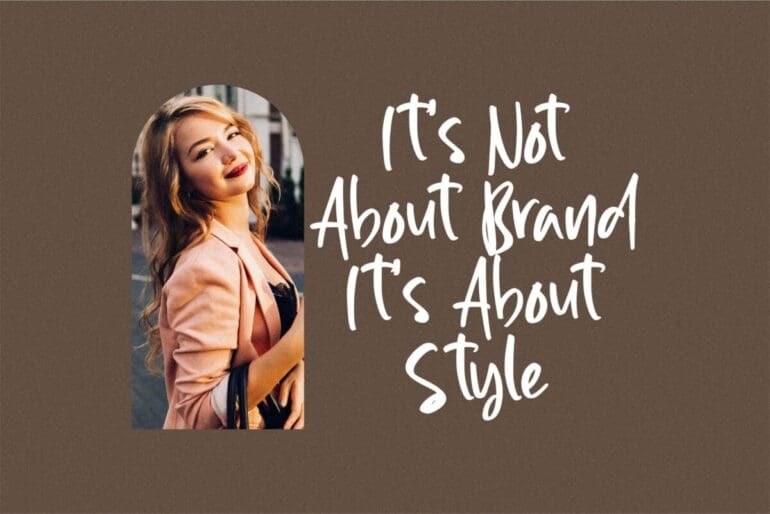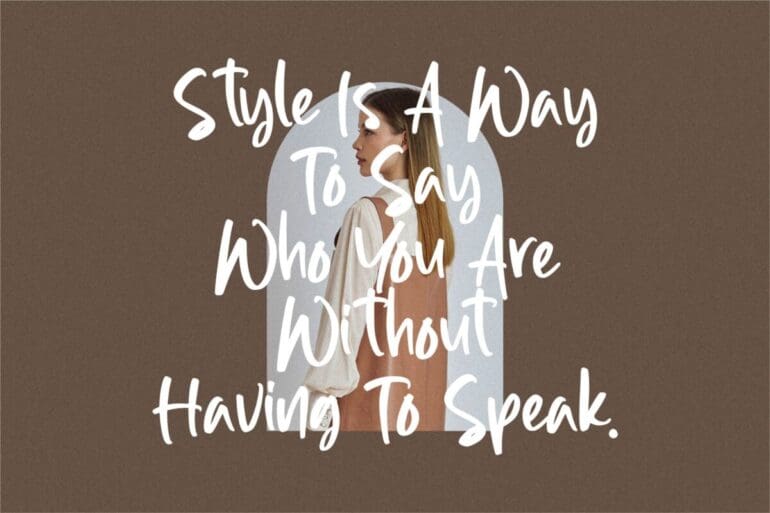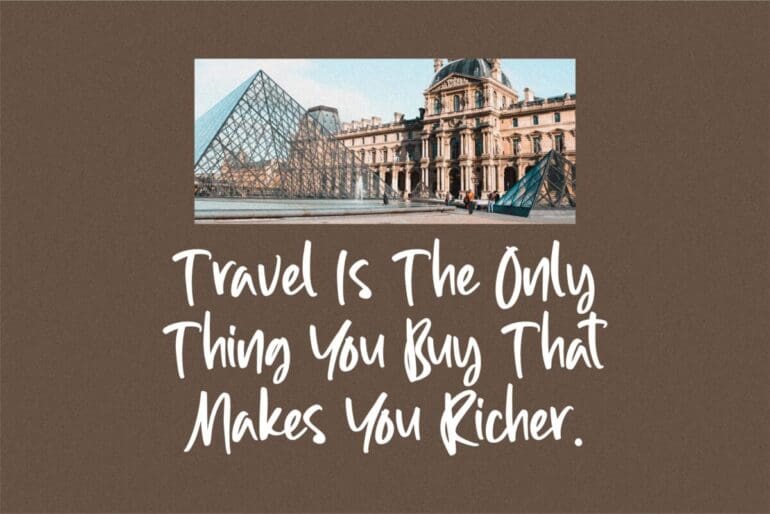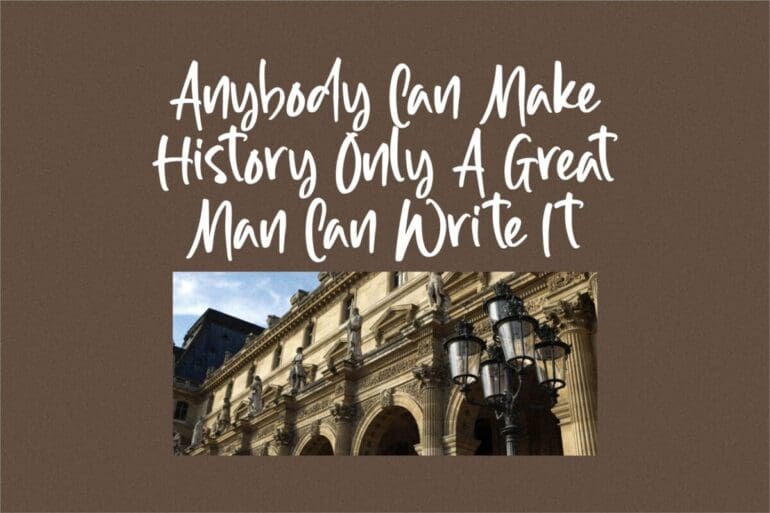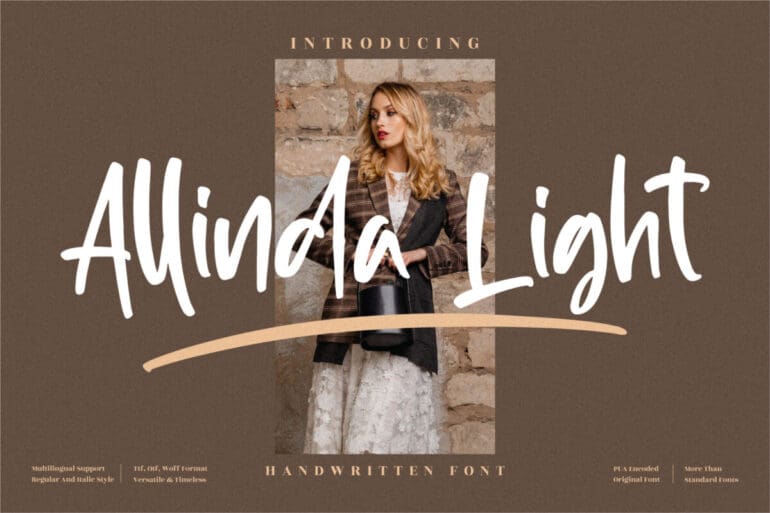
Allinda light Font
Allinda light is a beautifully carved Handwritten Font. Its elegant and sophisticated style makes this typeface incredibly fitting to a wide pool of projects and designs such as photography, watermarks, special events, or other luxury projects!